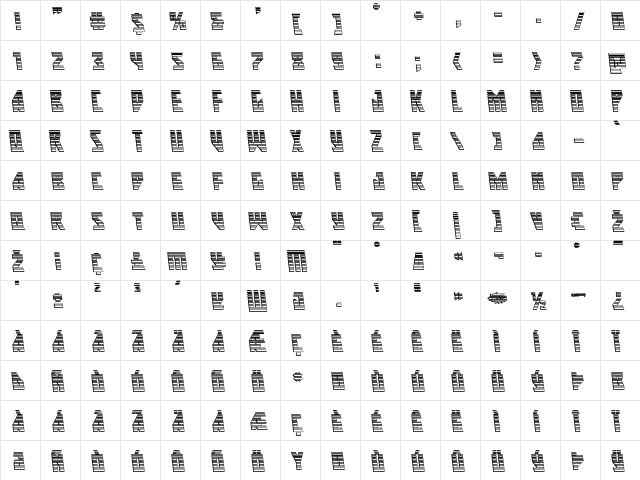
Major Force Chrome Leftalic Italic
Design Context for Major Force Chrome Leftalic Typeface
Major Force Chrome Leftalic has the bold swagger of sports branding: strong, assertive letterforms designed to dominate headlines and jerseys alike. Its italic angle brings a sense of urgency and motion to the letterforms.
Built for sports team identities, athletic apparel, event posters, and high-energy promotional material.
Font Pairing: Use alongside a condensed or geometric sans for supporting copy — keep the pairing bold, functional, and free of ornament.
Pro Tip: Major Force Chrome Leftalic thrives on contrast — try it large, bold, and tight against a clean background for maximum visual impact.